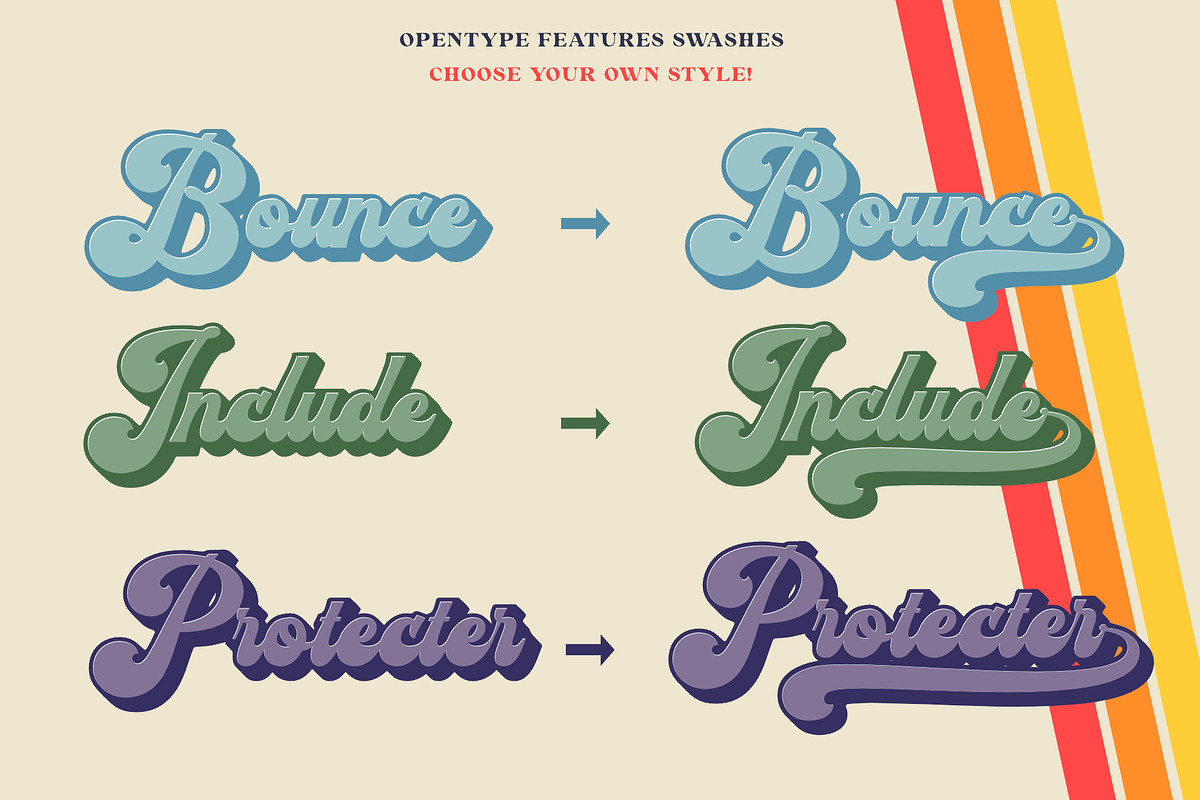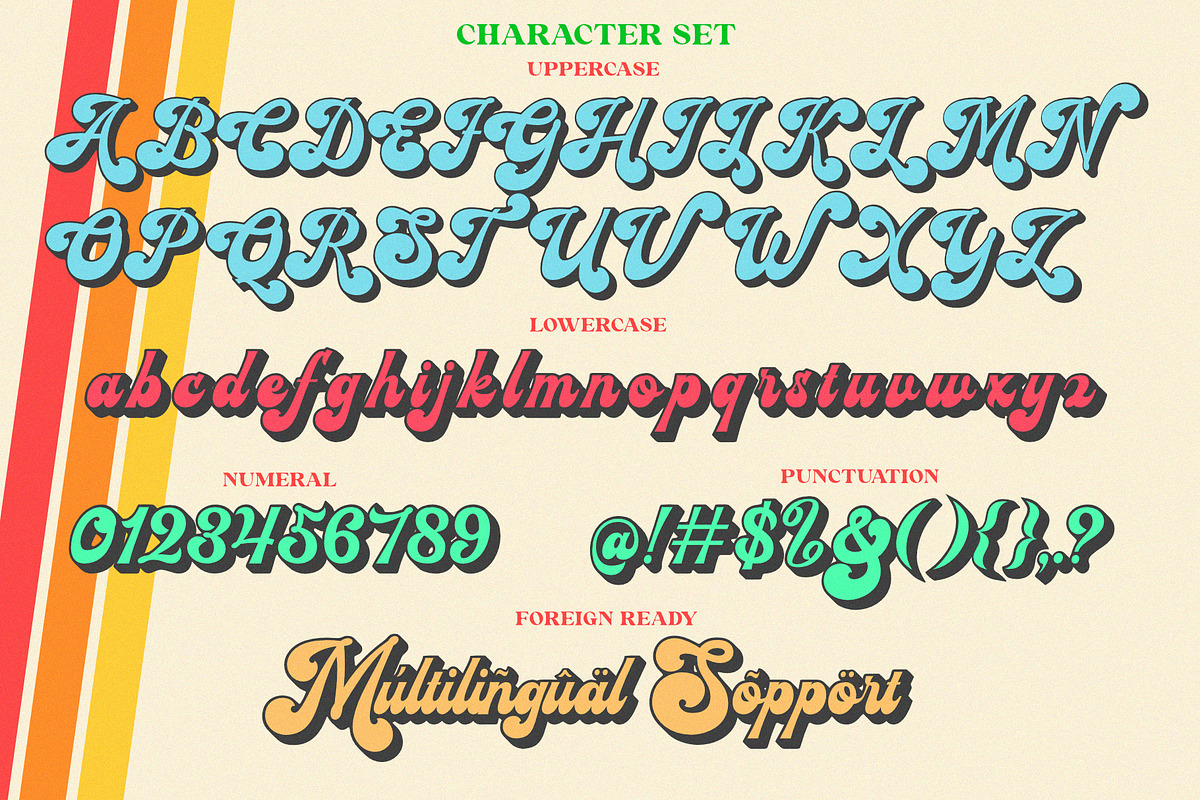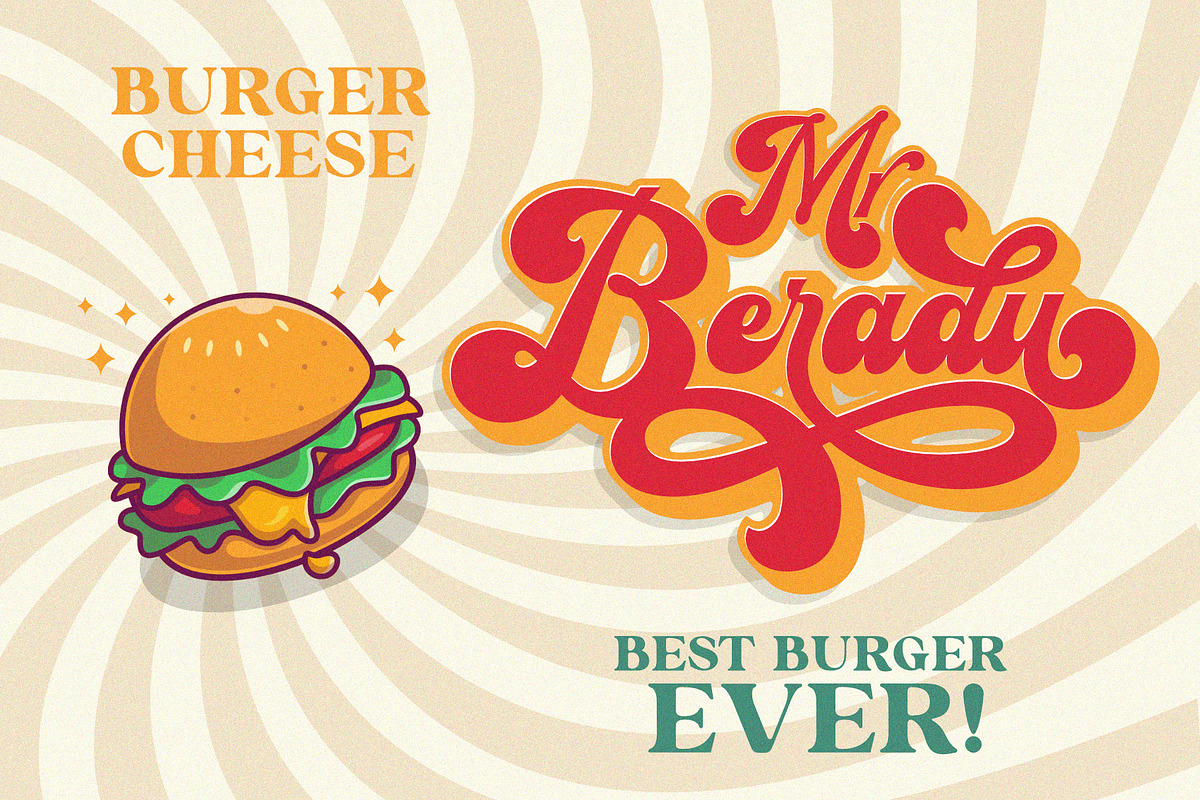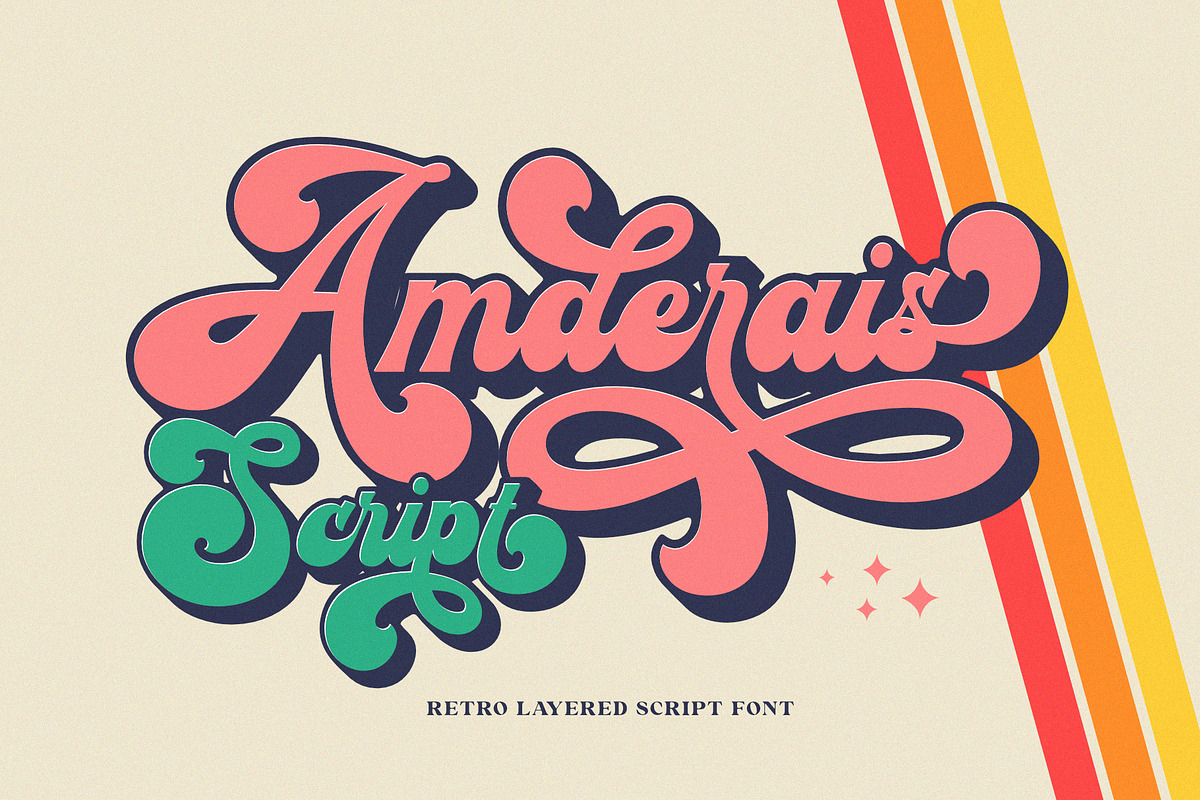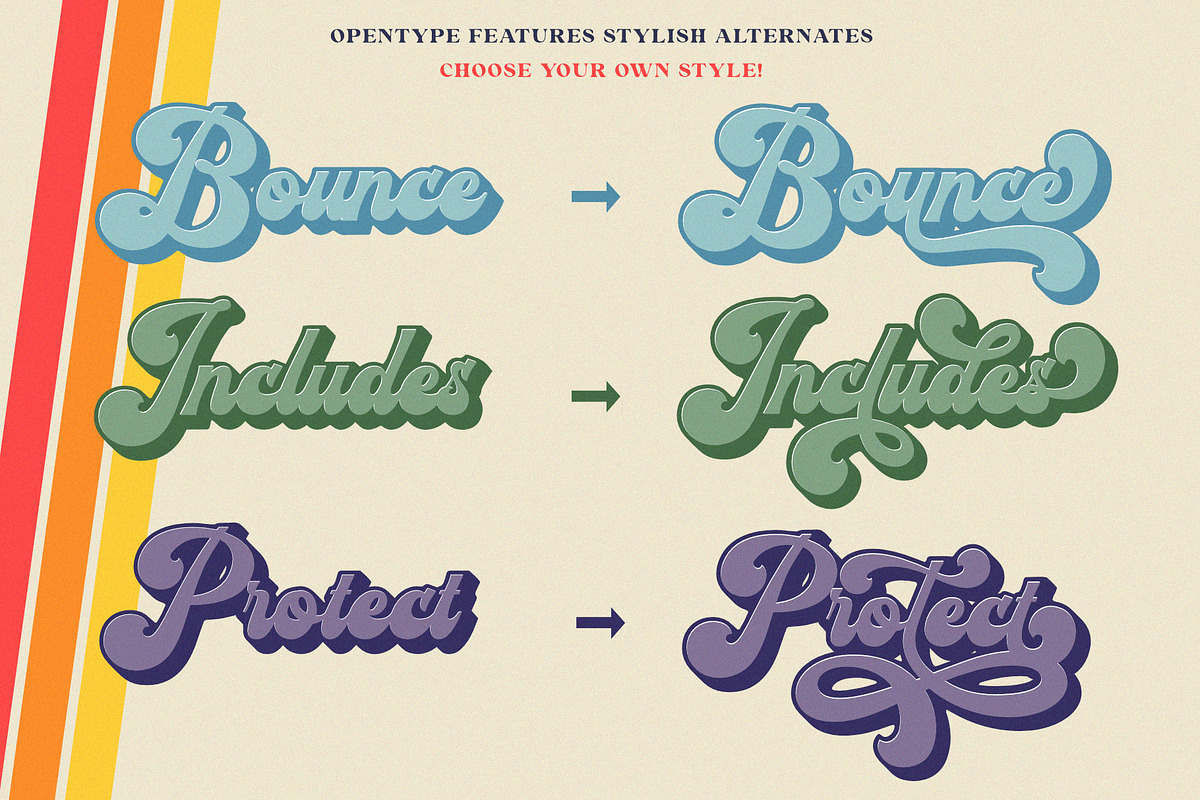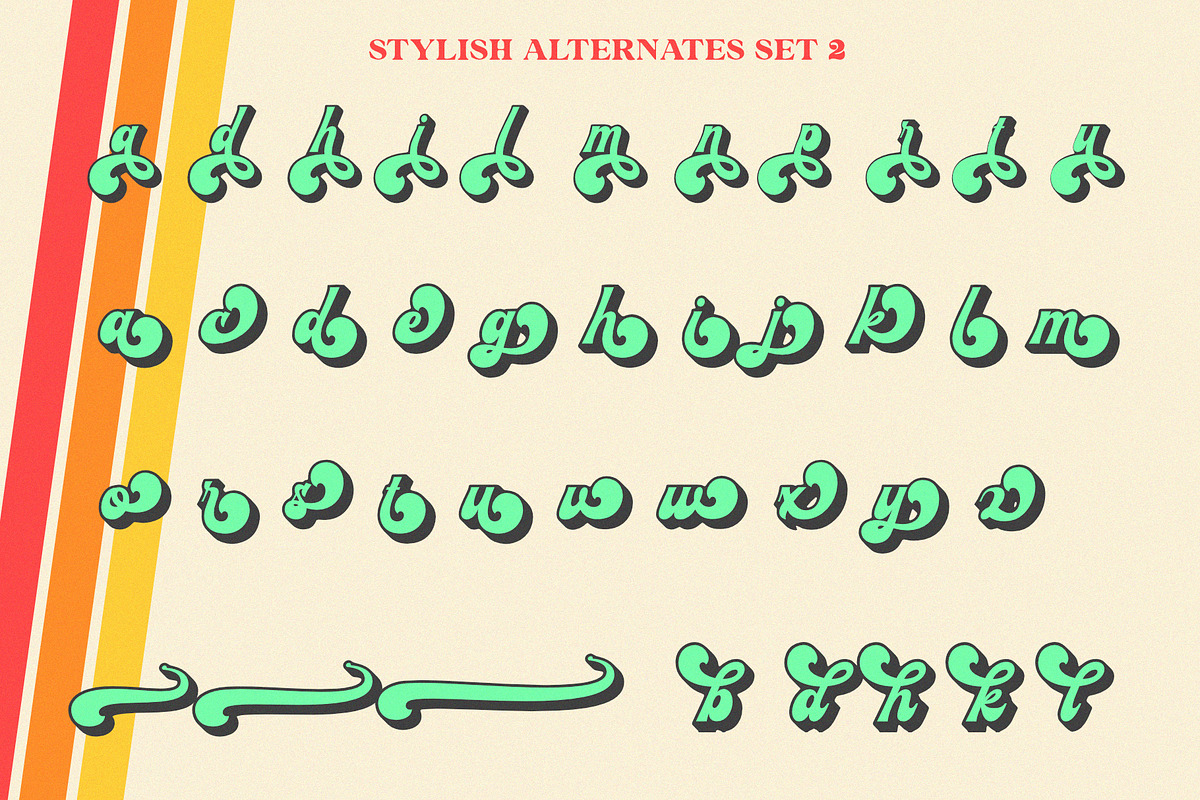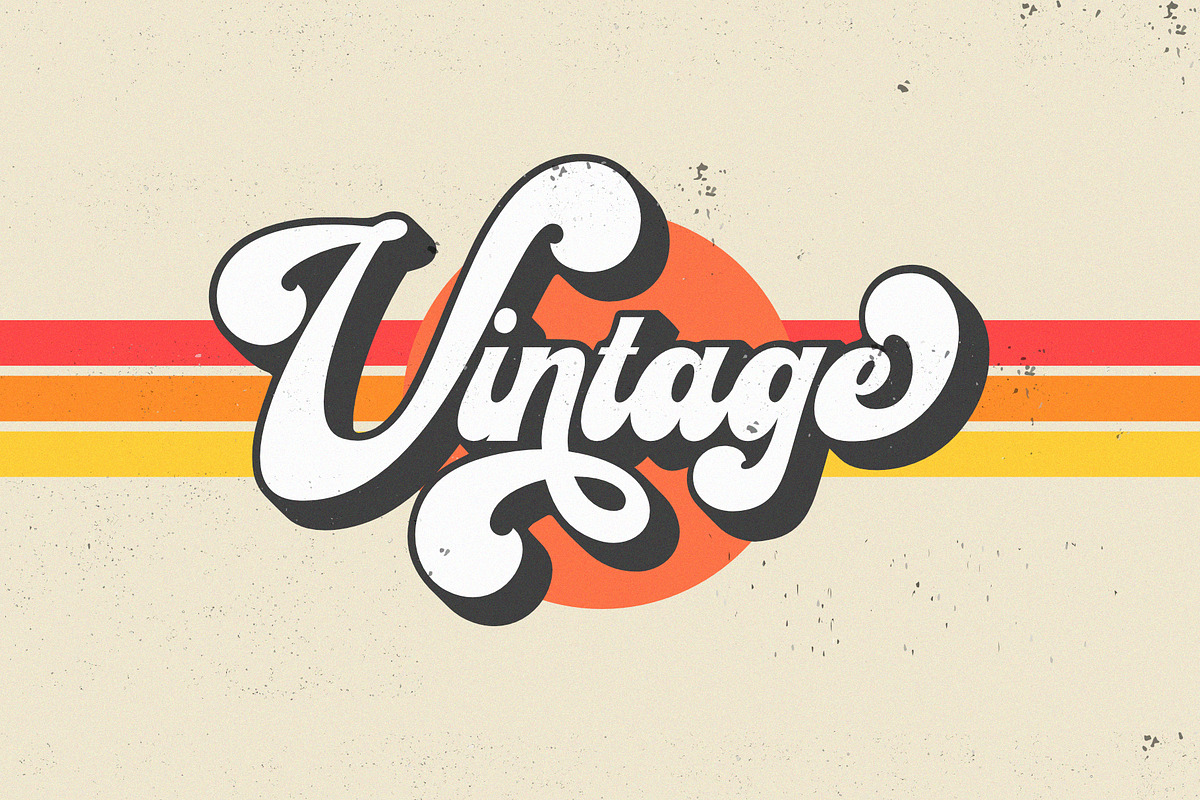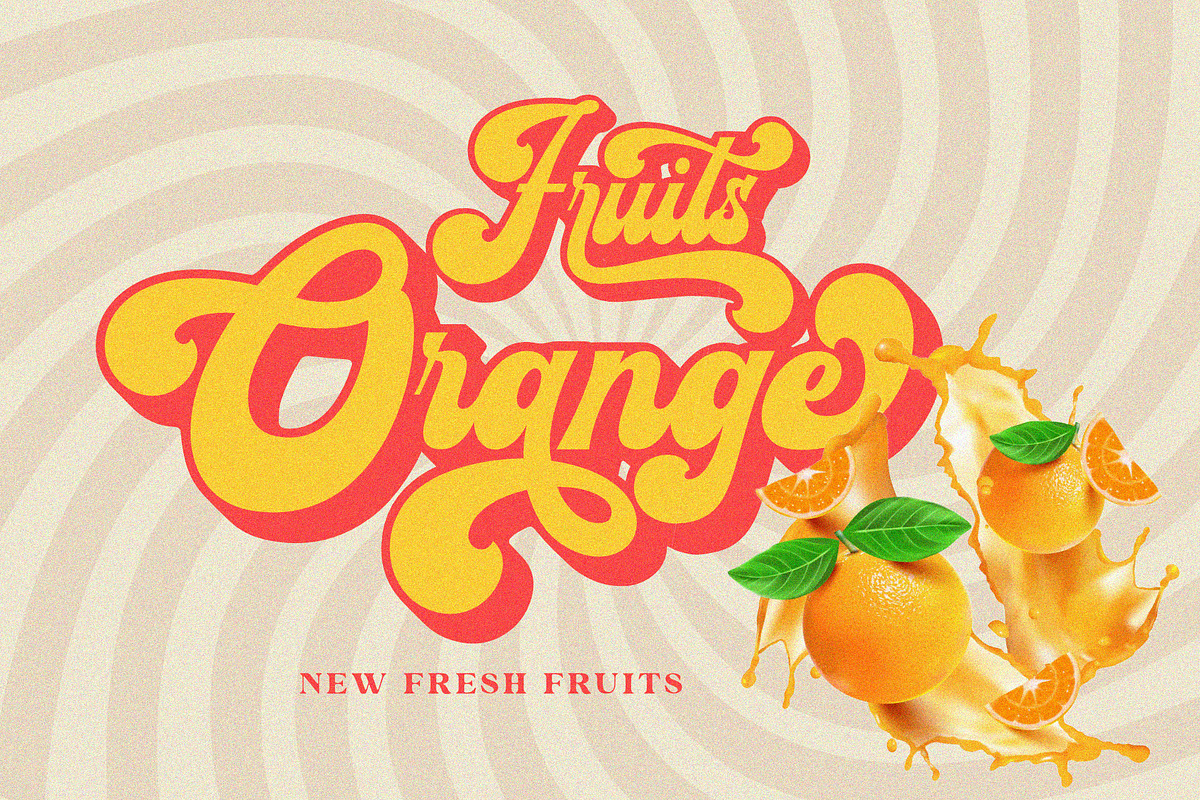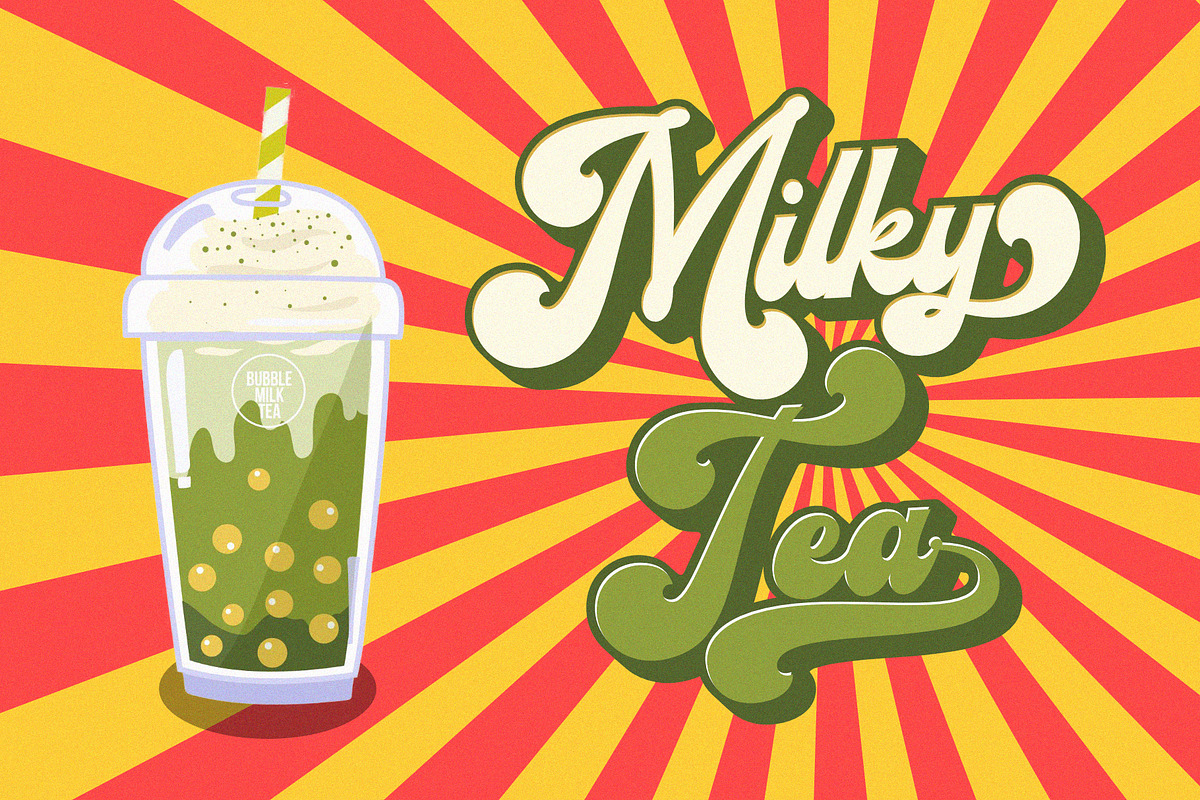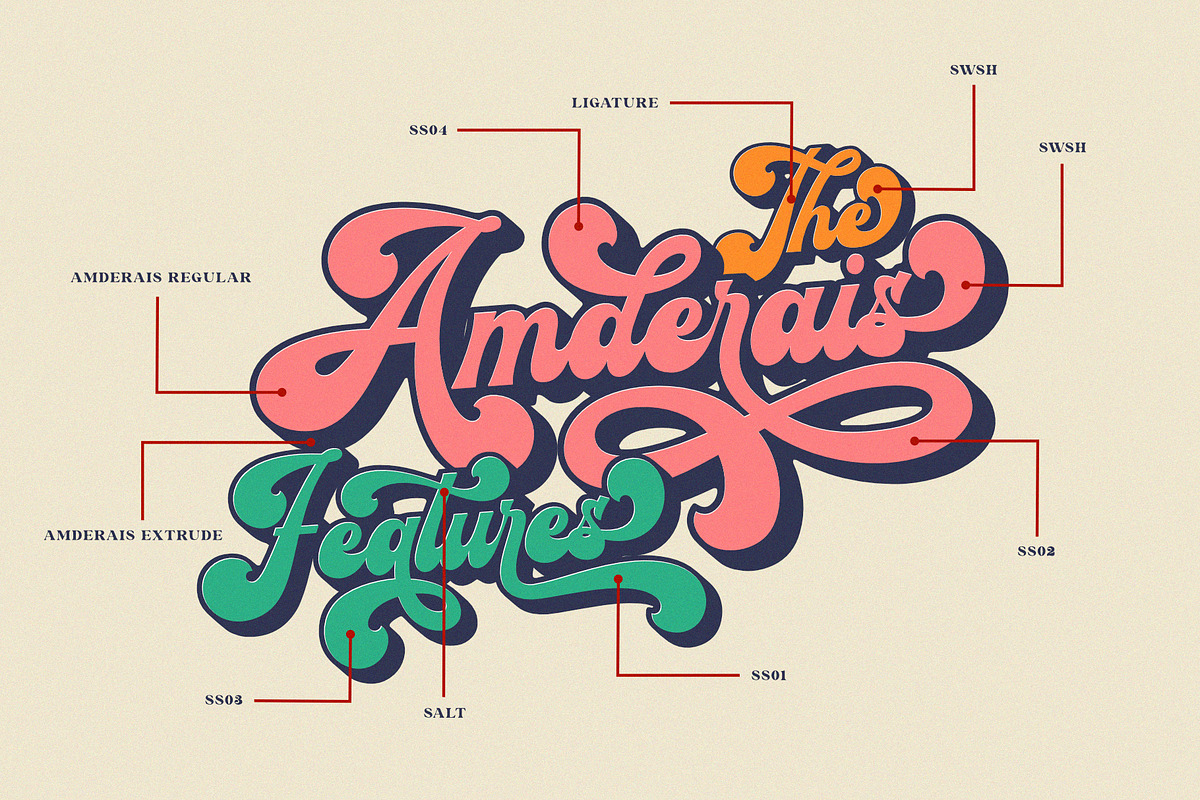
Amderais
Give your typographic designs a touch of retro style with Amderais!
Amderais is one of our 2022 fonts inspired by the famous retro typographic designs of the late 60s to 70s. This font has an extruded version so you can easily create retro effect fonts. This typeface is very suitable to be applied especially to logos, and various other formal forms such as invitations, labels, logos, magazines, books, greeting/wedding cards, packaging, fashion, make-up, stationery, novels, and labels or other types of fonts. advertising purposes.
- ligature
- alternates
- swashes